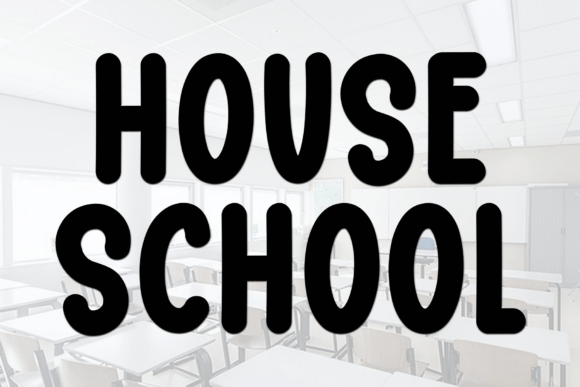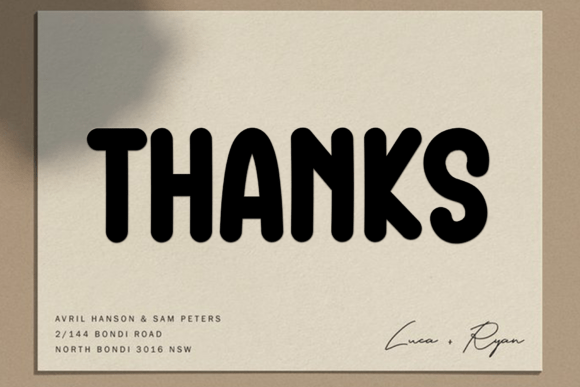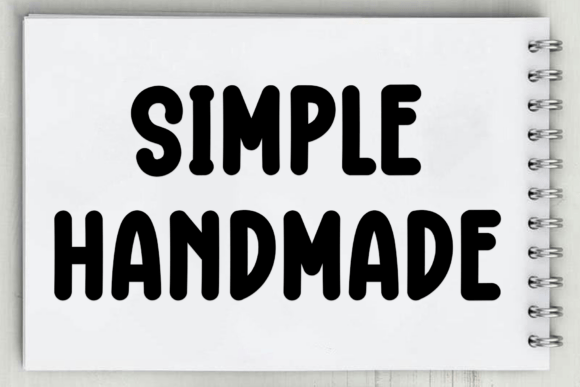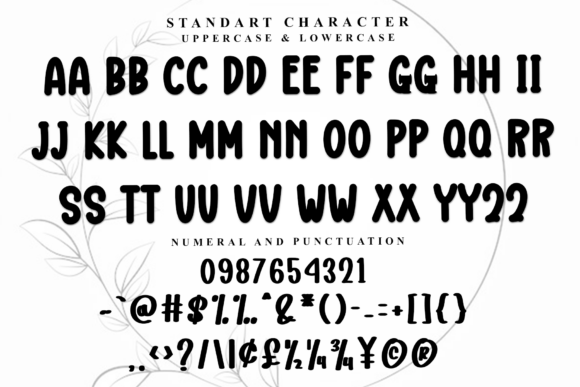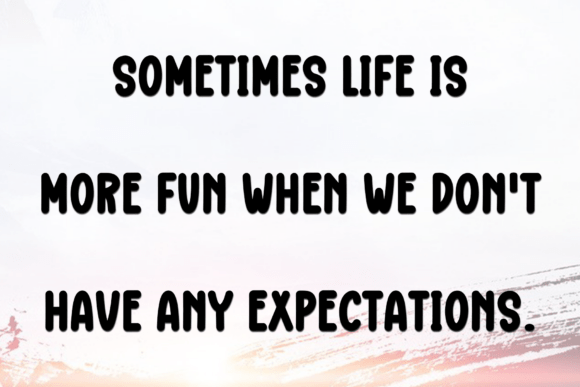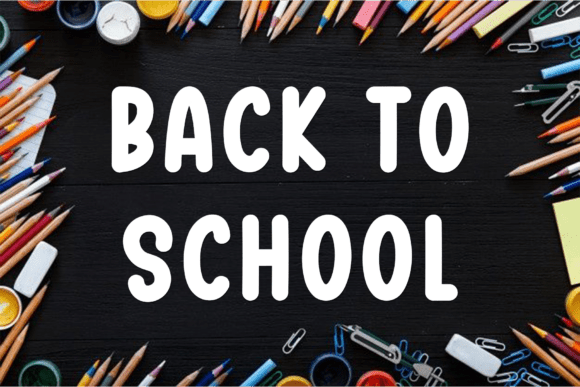
Introduction to Lemon Harvest Font
As a designer, have you ever found yourself rummaging through font libraries, searching for that perfect typography to elevate your next creative project? Perhaps you’ve stumbled upon a font that exudes warmth and character, instantly sparking your imagination. This is exactly what the Lemon Harvest Font offers – a unique blend of style and sophistication that’s sure to leave a lasting impression.
Key Features of Lemon Harvest Font
- High-quality design resource suitable for creative projects, offering a unique and modern aesthetic.
- Transparent background, allowing for easy layering and customization in various design applications.
- Designed to be highly legible and versatile, suitable for use in various contexts, from logos to typography.
Honest Review: Lemon Harvest Font
As a designer, I’m always on the lookout for high-quality design resources to elevate my creative projects. The Lemon Harvest Font caught my eye, and I’m excited to share my honest review.
- ✨ The font’s unique, hand-drawn feel adds a touch of whimsy to any design project.
- ✨ The transparent background makes it easy to layer over images or other design elements.
- ⚠️ The font is a bit too playful for some projects, and the irregular letterforms can be challenging to read in certain contexts.
- ⚠️ The font doesn’t come in as many weights or styles as I’d like, which can limit its versatility.
Overall, I’m impressed with the Lemon Harvest Font, but I wouldn’t recommend it for every project. If you’re looking for a unique, high-quality font for a creative project, this might be the perfect choice. Just be sure to consider the limitations and use it thoughtfully.